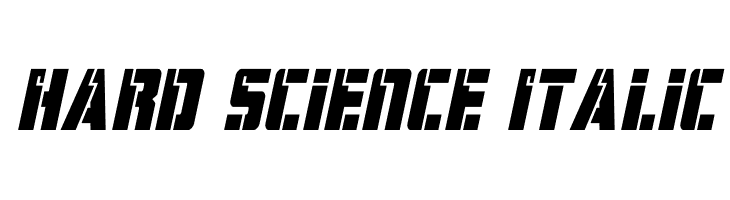
A bold, italic, futuristic font with sharp angles and geometric shapes.
A bold, italicized font with a futuristic and angular design.
A bold, angular font with a futuristic and industrial design.
A bold, futuristic italic font with sharp angles and high contrast.
A bold, dynamic font with angular shapes and high contrast, perfect for energetic designs.
A bold, geometric font with angular, block-like characters ideal for modern, tech themes.